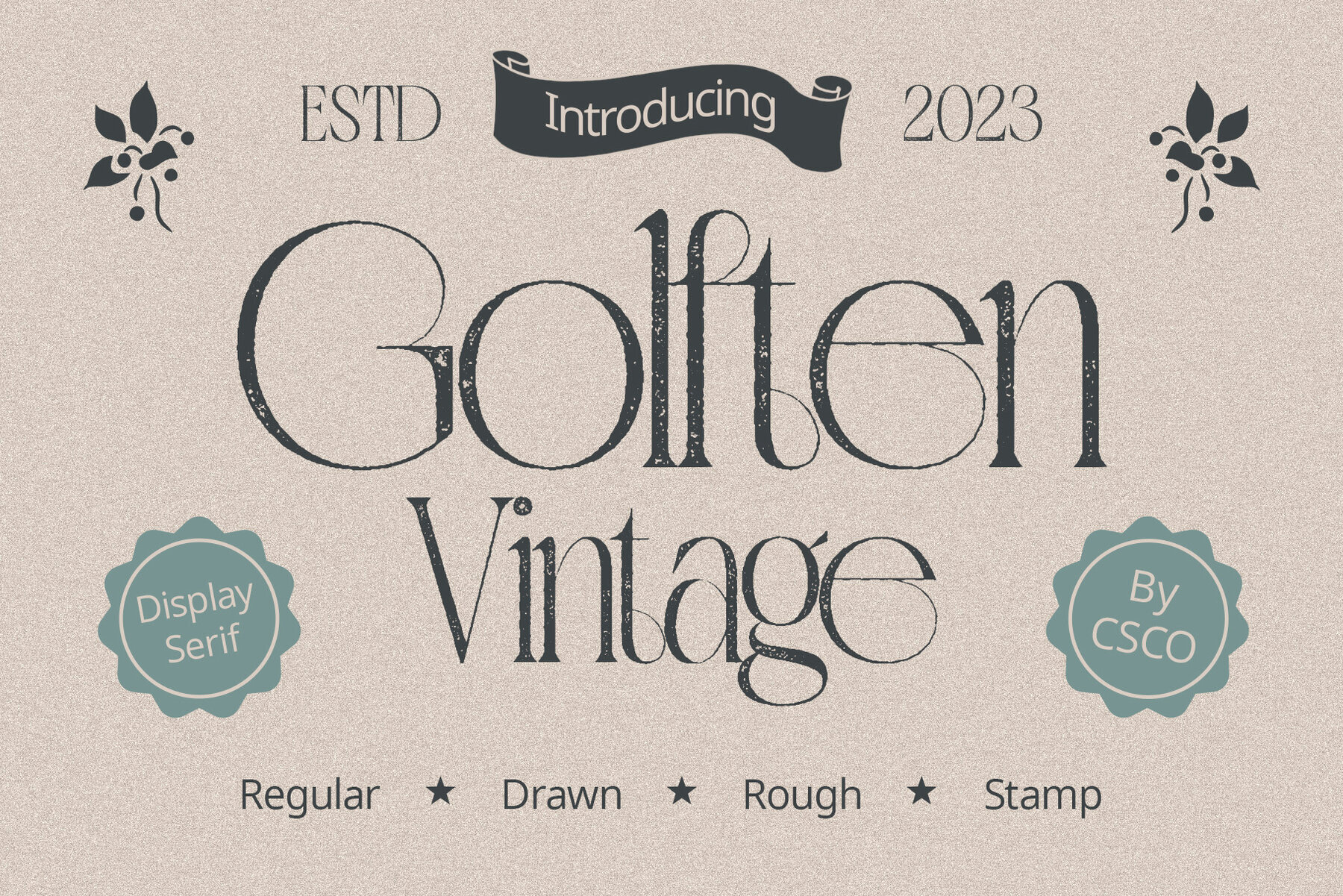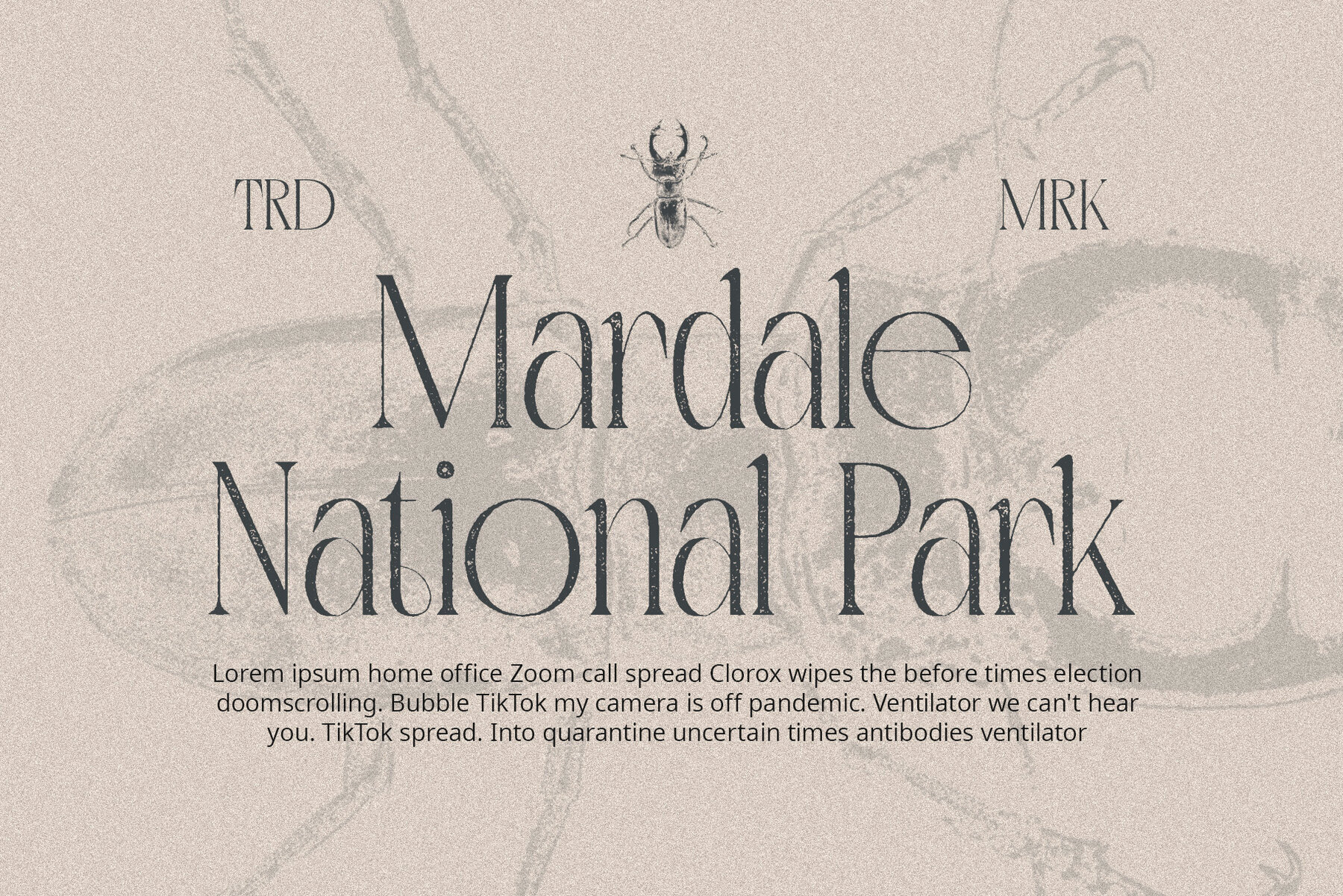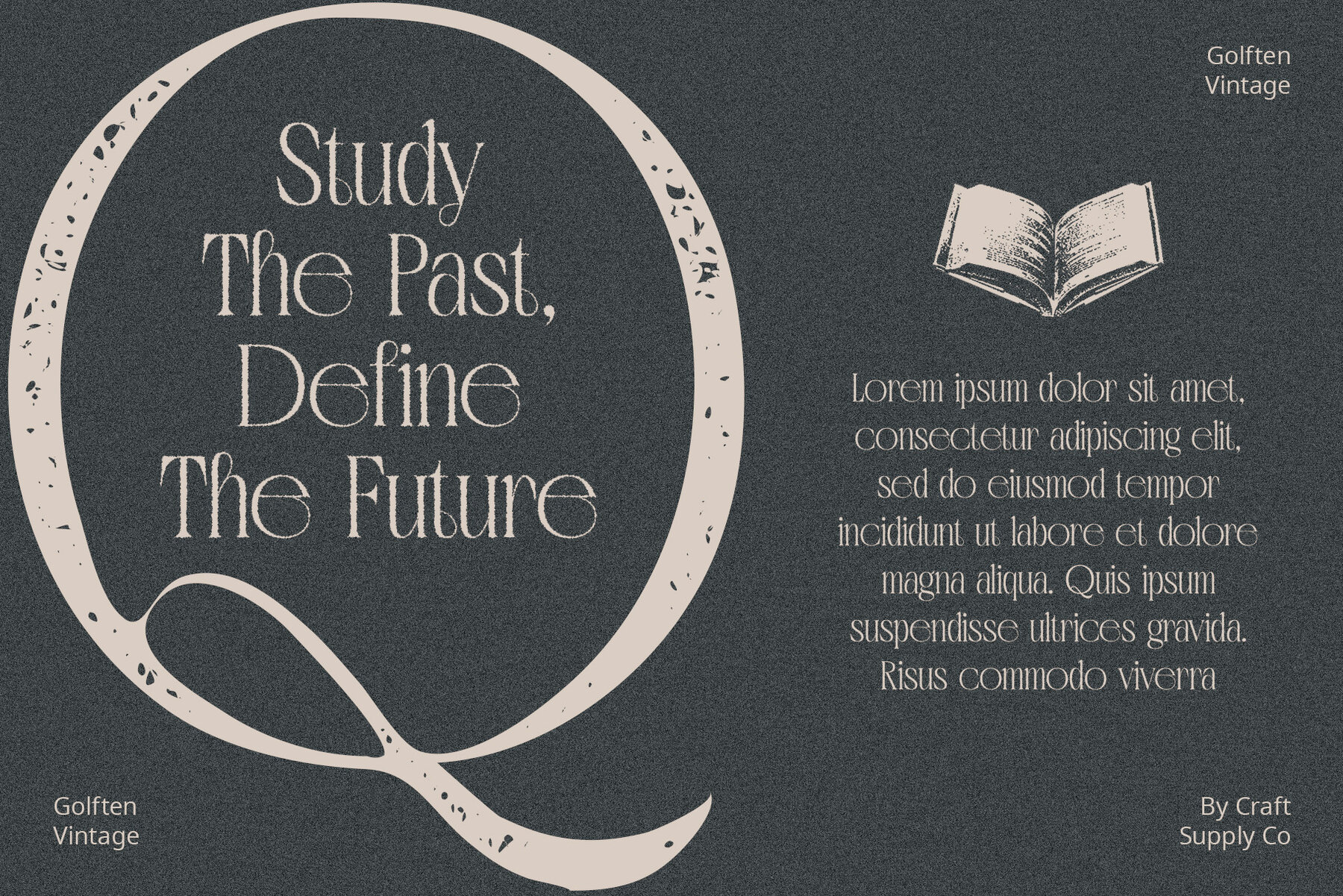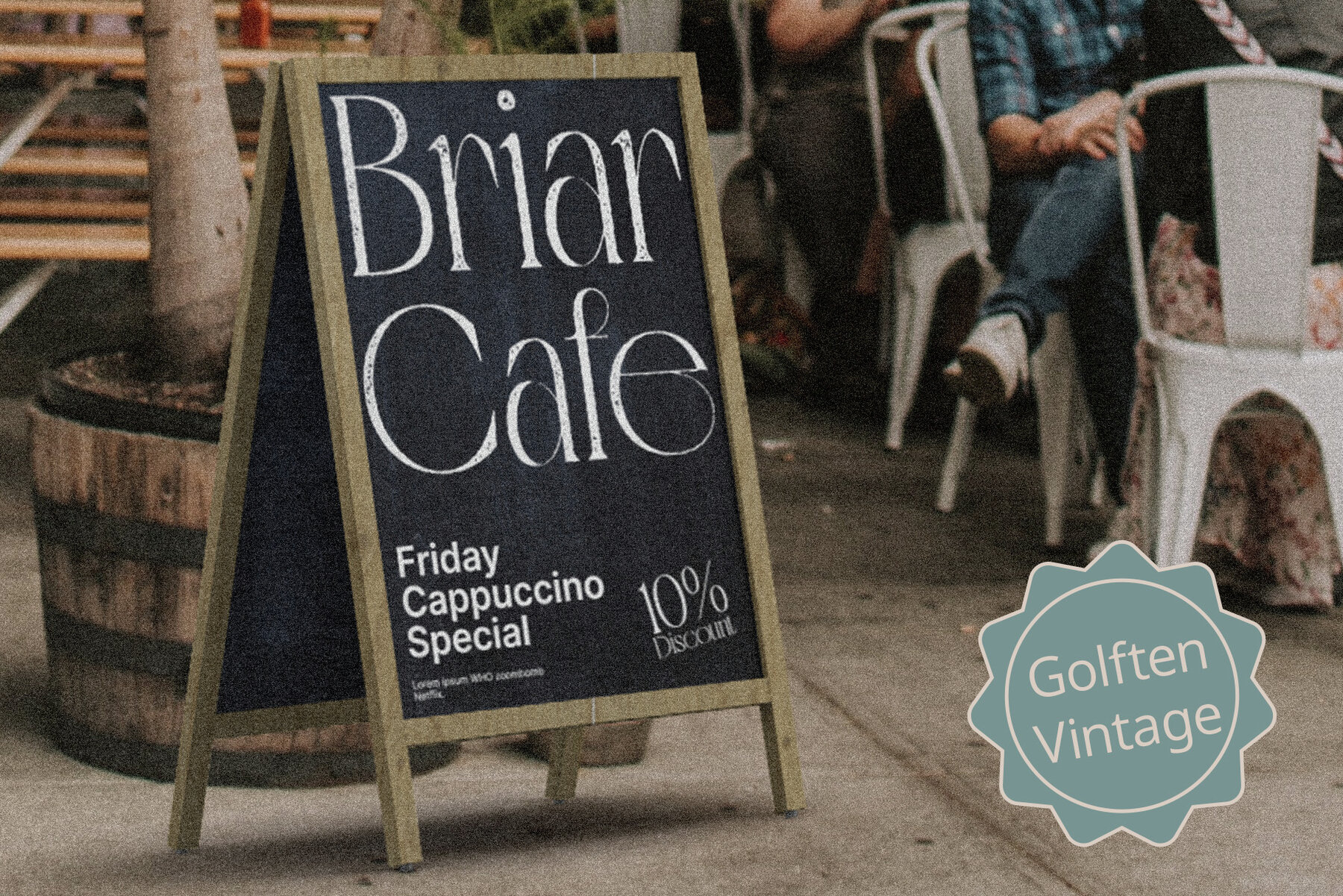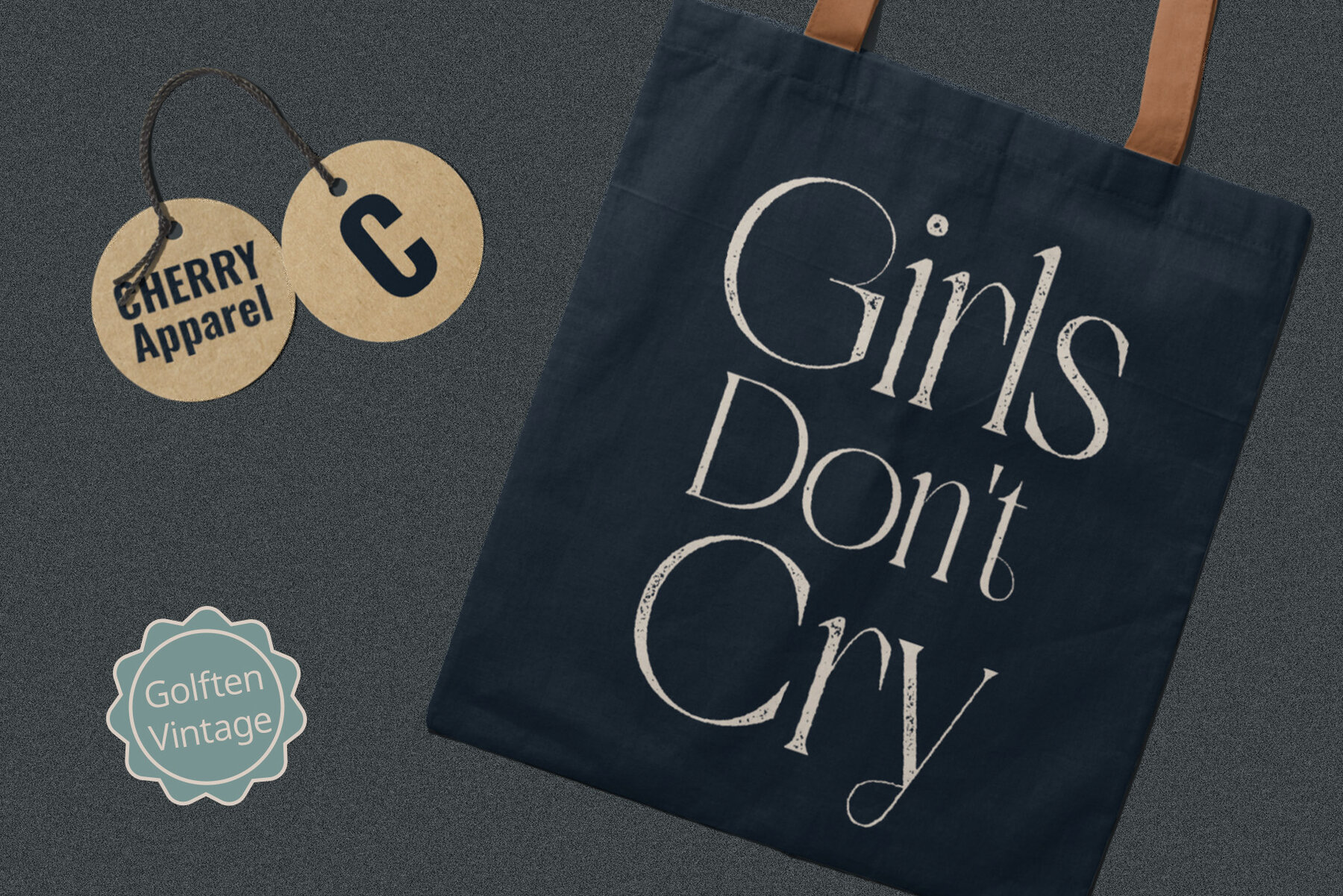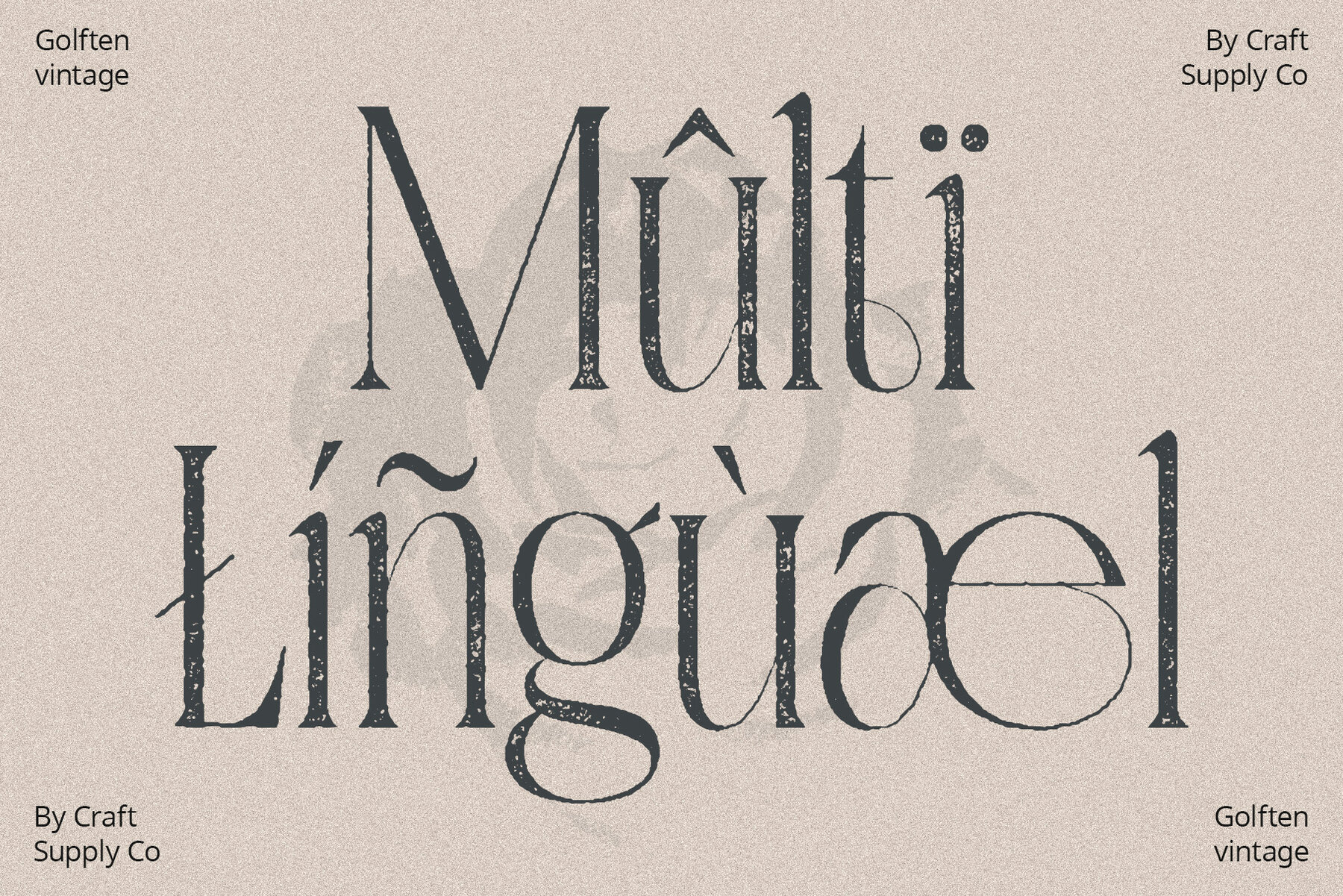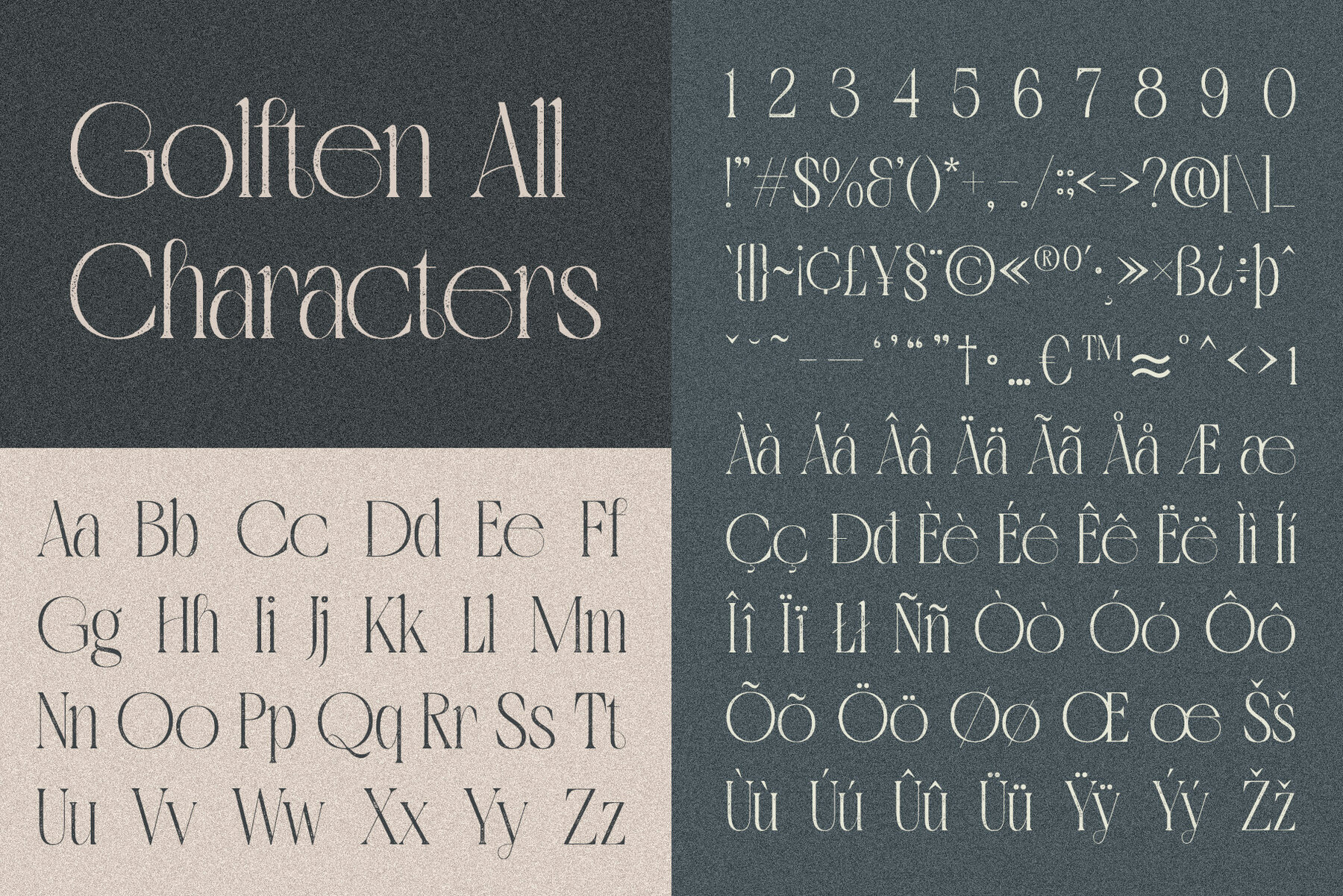
Golften Vintage Font
Golften Vintage artfully transcends conventional design. Inspired by Art Nouveau, it redefines elegance with a blend of grace and precision. Gracefully intertwining curvaceous elements, this font exudes a sense of serenity, reminiscent of Art Nouveau’s organic and flowing forms. Meticulously crafted, Golften Vintage showcases distinctive craftsmanship, with each character reflecting the grace and sophistication of the Art Nouveau era. More than just nostalgia, Golften Vintage offers versatile retro charm, ideal for various creative projects, from branding to vintage-inspired designs. Golften Vintage embodies the enduring allure of Art Nouveau. Its timeless inspiration, curvaceous serenity, distinctive craftsmanship, and versatile retro charm make it a compelling choice for those seeking to infuse their projects with vintage elegance. No specialized software is needed to utilize this typeface. For any inquiries or assistance, please contact us. We appreciate your support in making your creative projects shine! Best regards, Craft Supply Co.Golften Vintage: Art Nouveau Serif Font
Curvaceous Serenity
Distinctive Craftsmanship
Versatile Retro Charm
A Testament to Enduring Allure